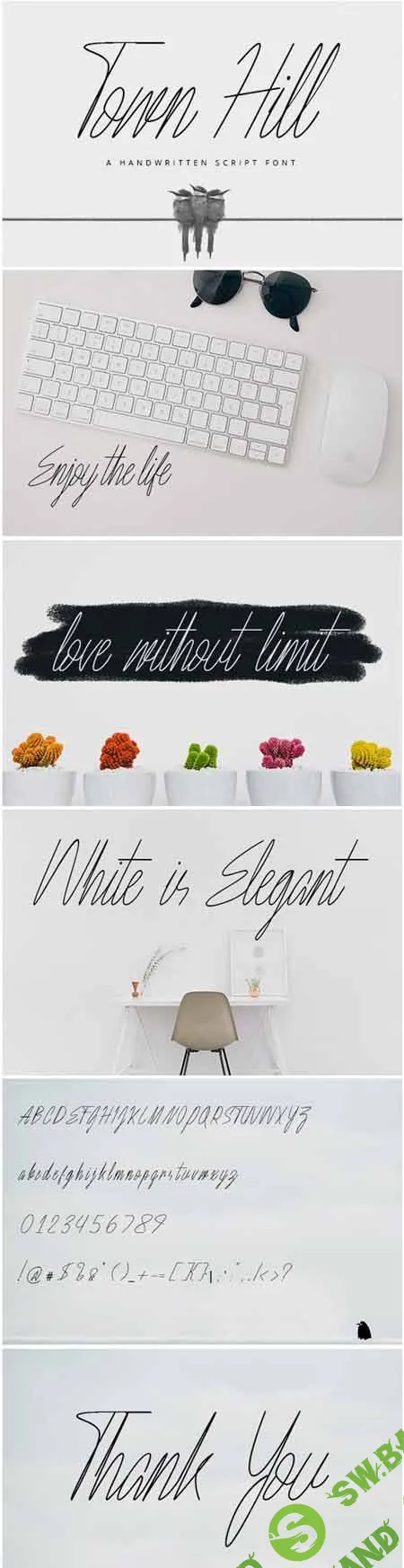
Town Hill Font
Town Hill is a sweet and charming script with a cool twist. Use it to turn any design project into a true standout!
Очень приятный и минималистичный шрифт. Кириллицу увы не поддерживает, но всё равно неплохо